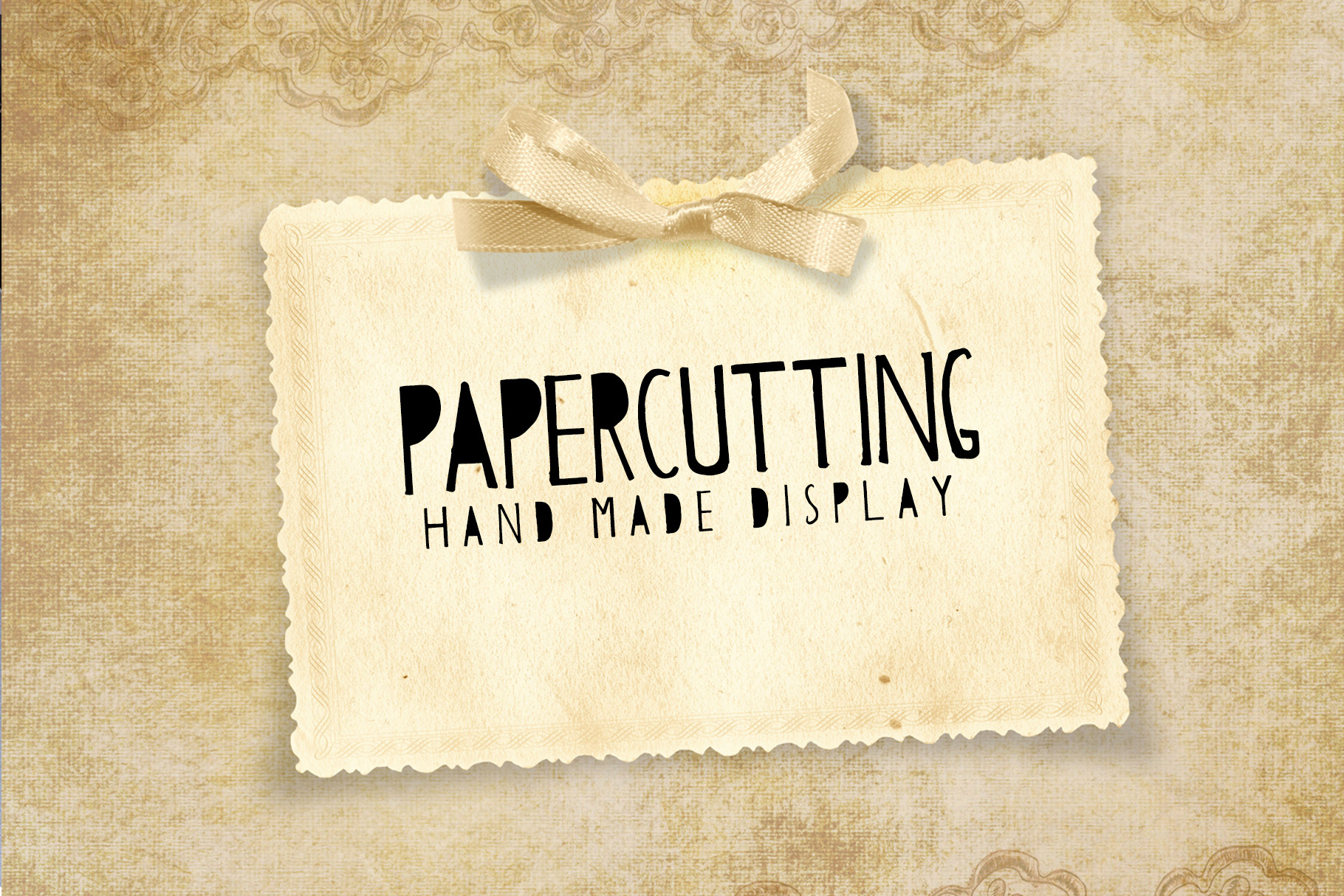
Papercutting Fonts
We present to you Papercutting great handwritten font. 100% drawn by hand. The font perfectly captures the structure of a paper cutting. Perfectly suitable for the decoration of your works.
- Font Weight: Regular and Outline
- Extras: Uppercase Letters, Numbers, Punctuation & Symbols